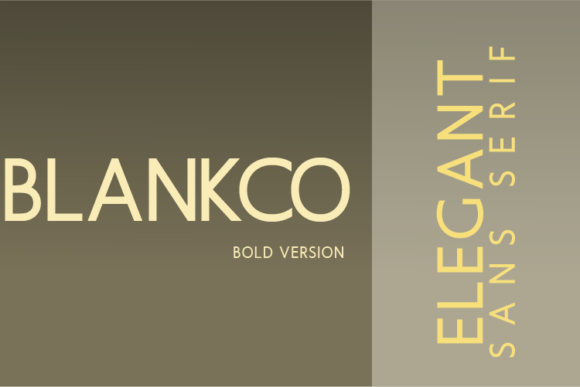
Welcome to the realm of Blankco Bold Font, a typographic masterpiece that's set to redefine your design horizons. Blankco is no mere font; it's a gateway to a world of limitless creativity, a tool that transforms your ideas into visual symphonies.
Crafted with meticulous attention to detail, Blankco Bold Font captures the essence of geometric beauty, paying homage to iconic typefaces like Futura and Avant Garde. Its big x-height value, sharp edges, and minimal stroke contrast evoke a sense of modernity, while its geometric letterforms harken back to the golden era of neo-grotesk fonts.
With Blankco Bold Font as your creative companion, you'll unlock a universe of design possibilities. Its versatility knows no bounds, allowing you to effortlessly navigate the worlds of magazine layouts, poster designs, branding projects, and website creations. It's a font that adapts seamlessly to your vision, effortlessly enhancing your messages and leaving a lasting impression.
Whether you're an artist seeking to paint your thoughts with typographic strokes, a designer yearning to craft captivating visuals, or a business owner looking to leave an indelible mark, Blankco Bold Font is your steadfast partner. Its clean lines and bold presence command attention, while its inherent flexibility ensures effortless integration into your design endeavors.
Don't settle for ordinary fonts that blend into the background. Embrace Blankco Bold Font, a typographic masterpiece that demands attention and elevates your creations to new heights. Let your imagination soar, knowing that Blankco will faithfully translate your vision into a visual feast that captivates and inspires.